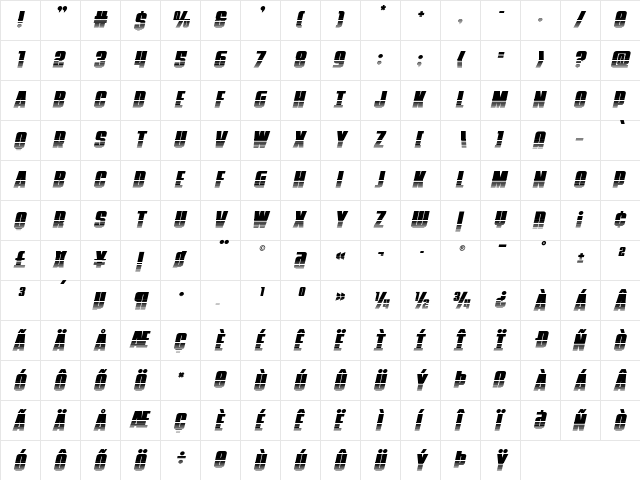
Punch Twotone Italic Regular Font Preview
Punch Twotone Italic Regular
Design Context for Punch Twotone Italic Typeface
Punch Twotone Italic offers clean, dependable letterforms without strong stylistic allegiance, making it a practical choice for designers who need flexibility. The dynamic lean of this cut emphasises speed and emphasis in any layout.
Pro Tip: Use Punch Twotone Italic for emphasis, pull quotes, and subheadings where its slanted energy can add rhythm to the layout.